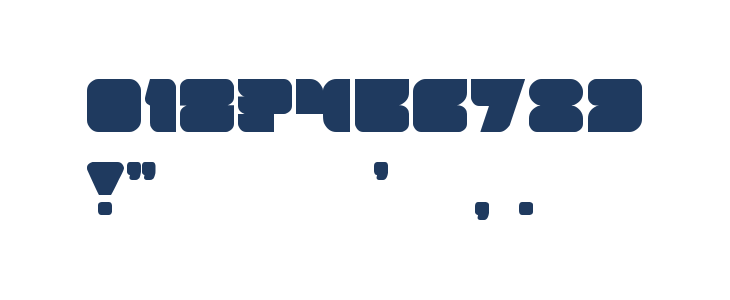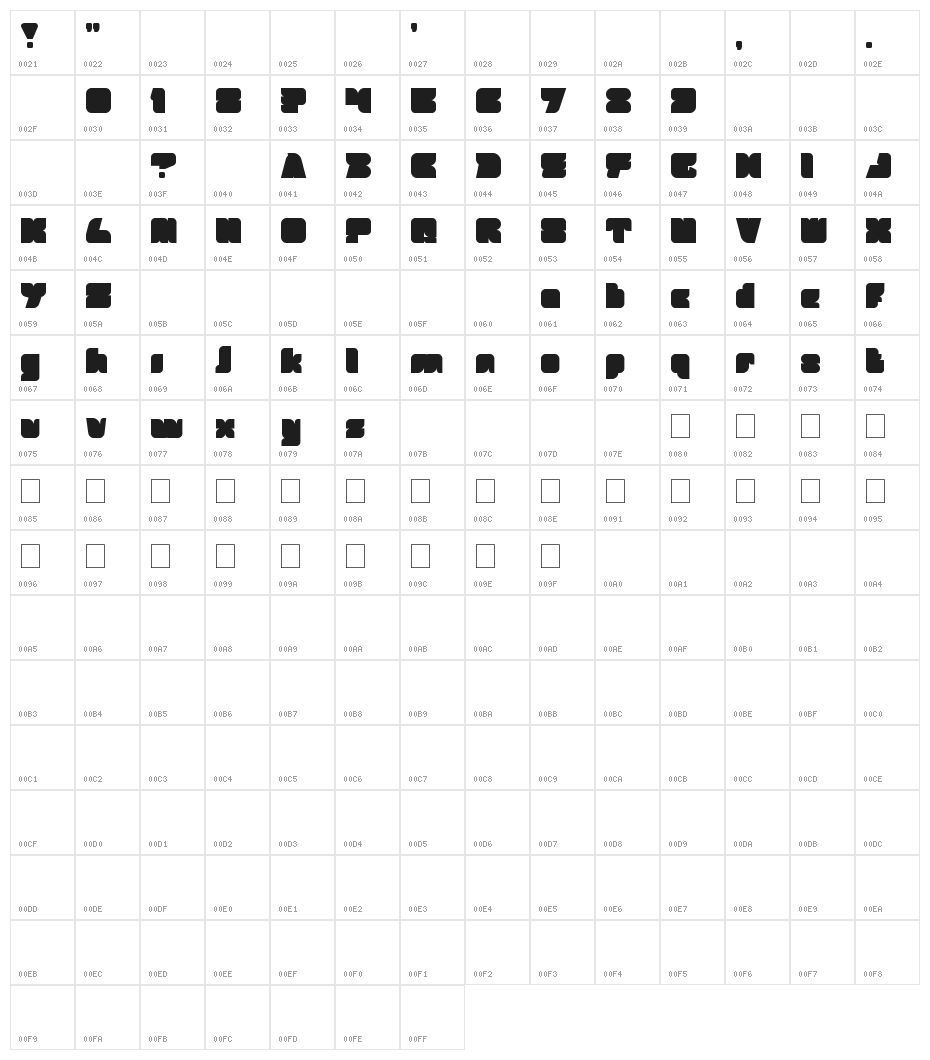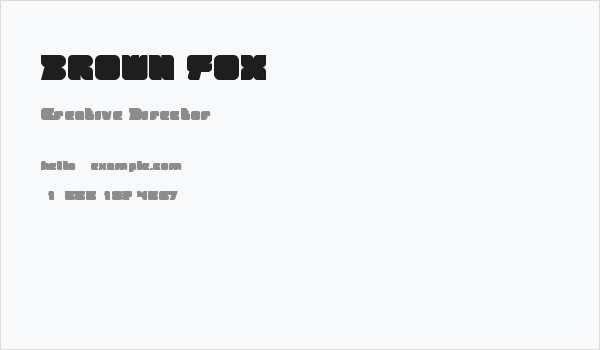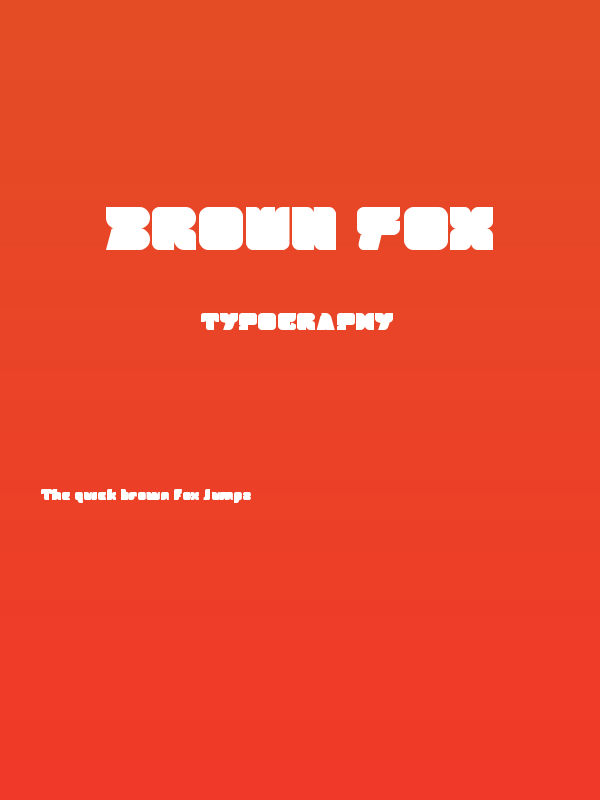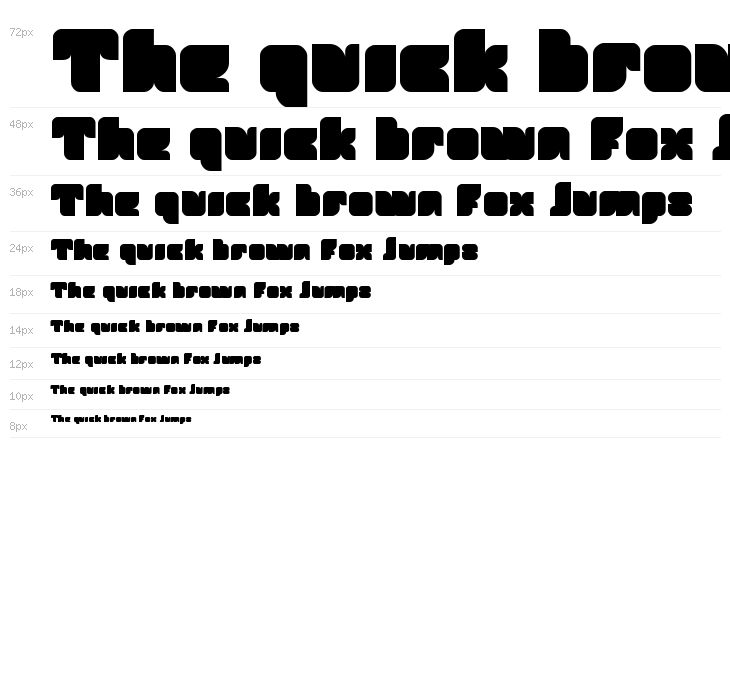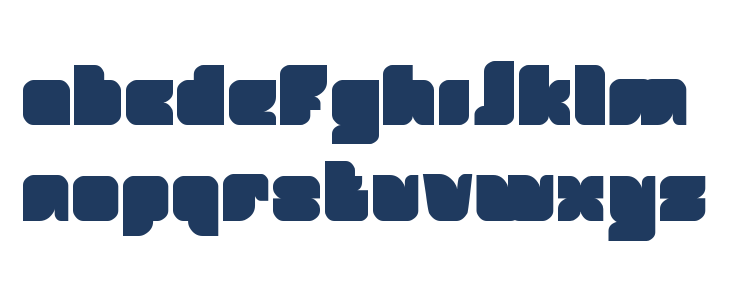
BROWN FOX Font
BROWN FOX Description
This font features a bold and geometric design with thick, block-like characters. Each letter is constructed with a strong emphasis on horizontal and vertical lines, creating a sense of solidity and impact. The characters are uniformly wide, contributing to a cohesive and structured appearance. The font's unique style is characterized by its heavy weight and minimal contrast between strokes, giving it a modern and industrial feel. The rounded edges soften the overall look, adding a touch of approachability to its otherwise robust design. This font is particularly effective in capturing attention and conveying a sense of strength and stability.